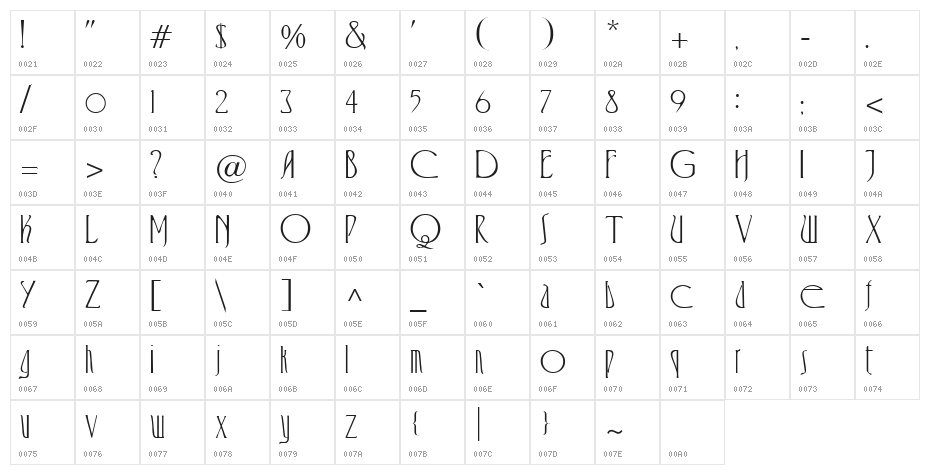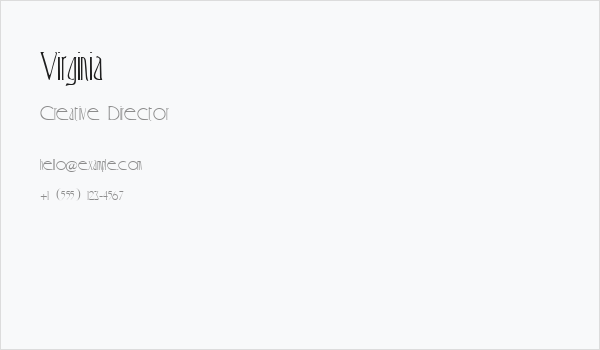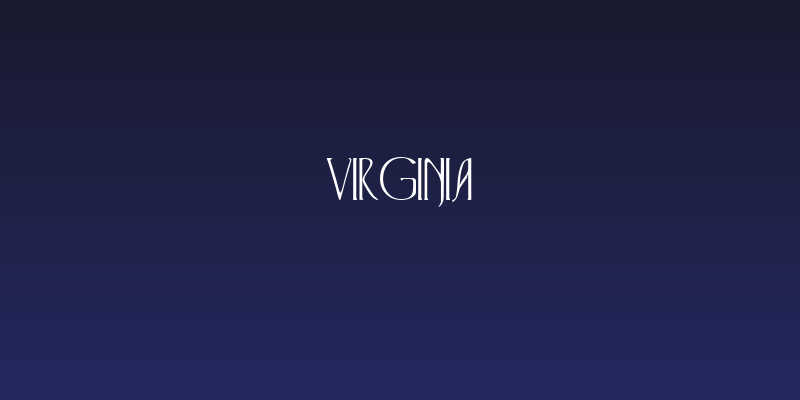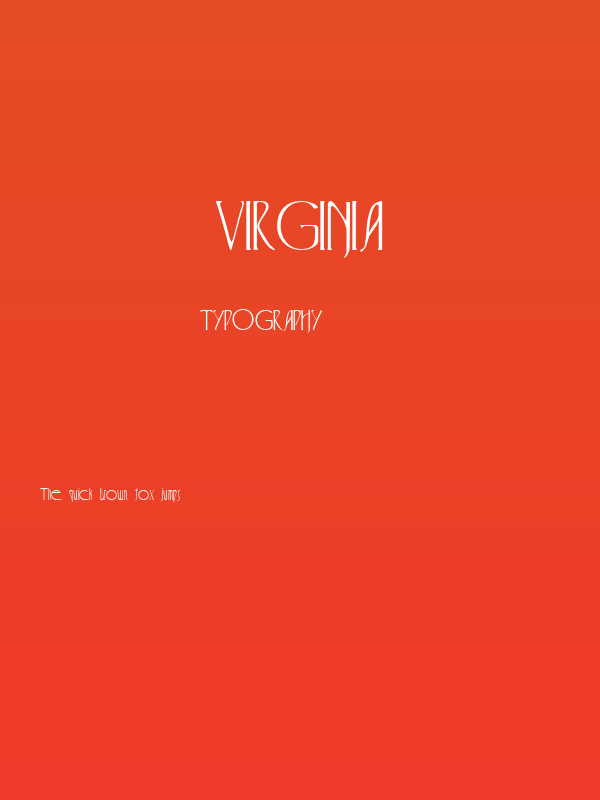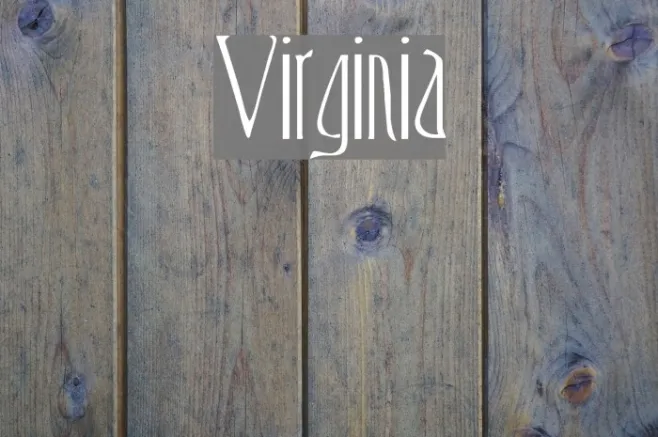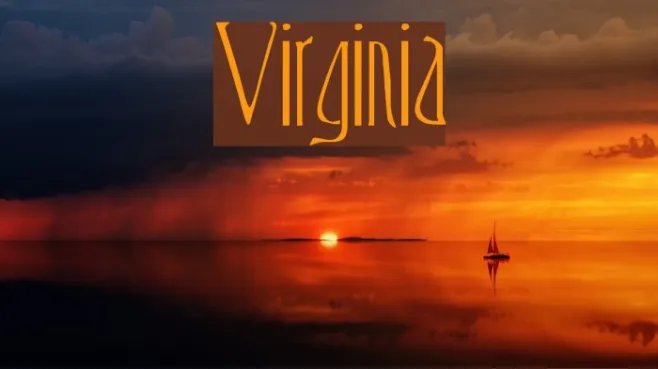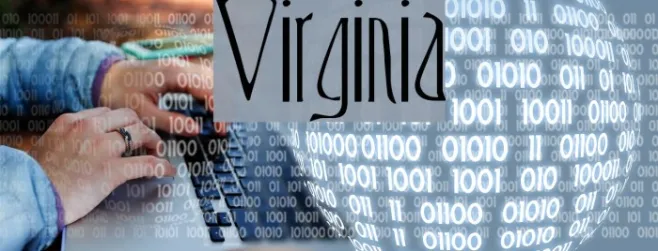
Virginia Font
Virginia Description
This font features an elegant and artistic design with a unique blend of curves and sharp edges, creating a sophisticated and stylish appearance. The uppercase letters are tall and slender, with distinctive flourishes that add a touch of flair. The lowercase letters maintain a consistent style, with some characters exhibiting elongated strokes that enhance the font's graceful look. The numerals are designed with a similar aesthetic, ensuring uniformity across all characters. Special characters are crafted with the same attention to detail, making this font versatile for various design needs. Its overall appearance is both modern and timeless, suitable for projects that require a touch of elegance and creativity.
VIRGINIA UPPERCASE
VIRGINIA LOWERCASE
VIRGINIA OTHER CHARS